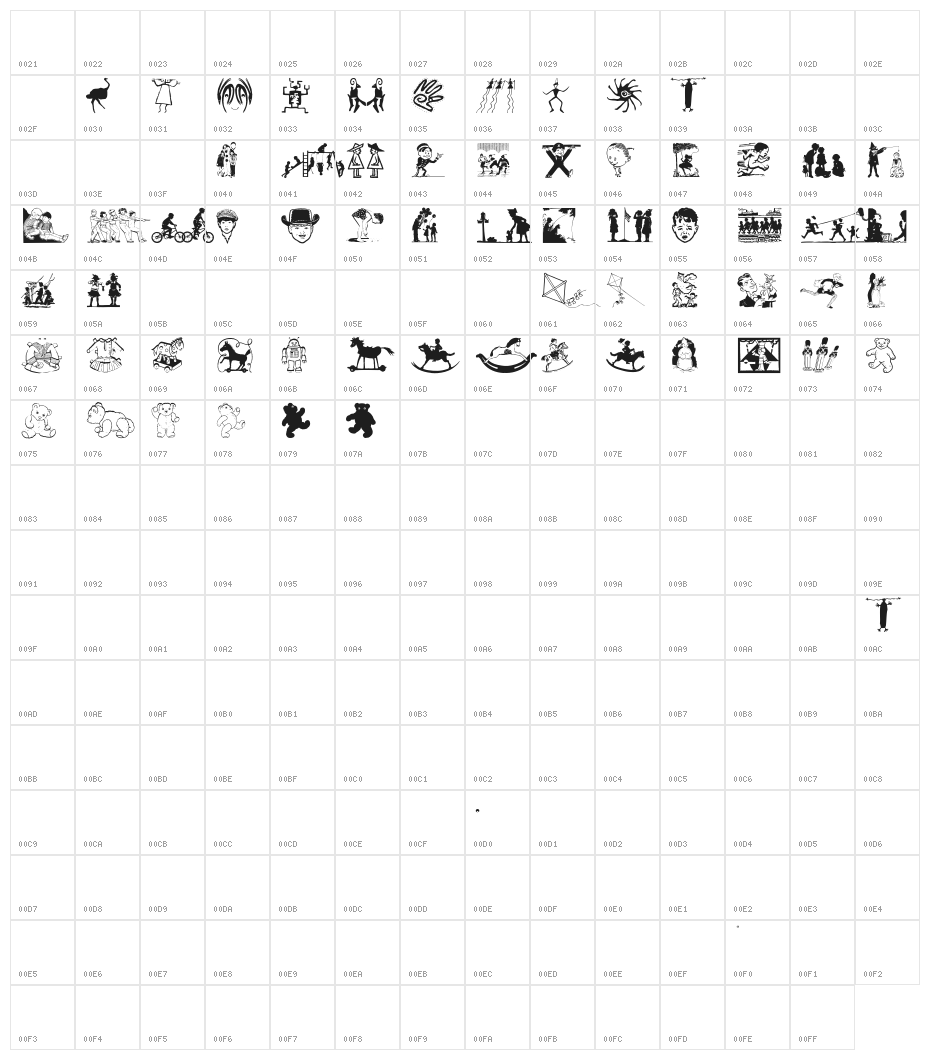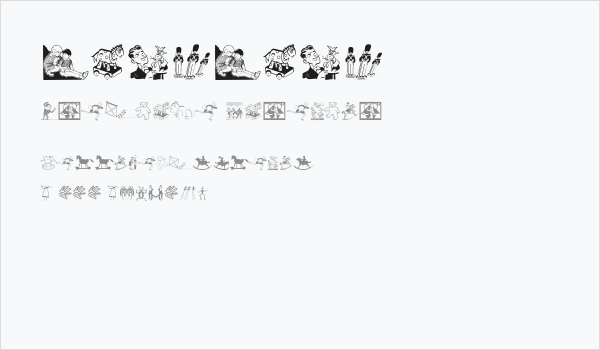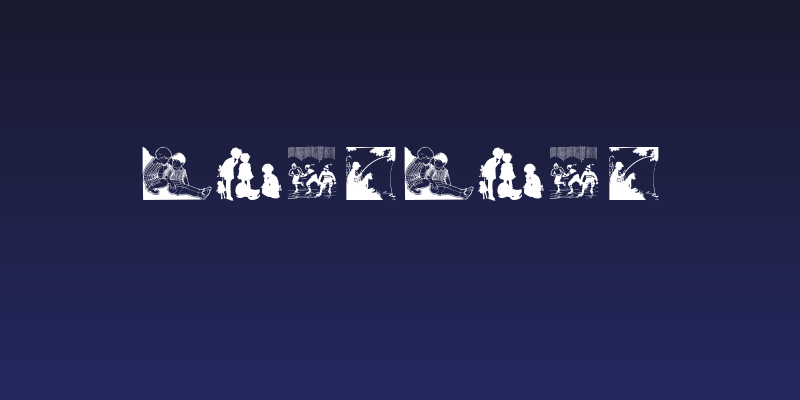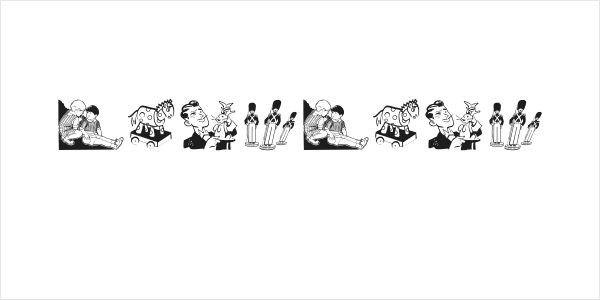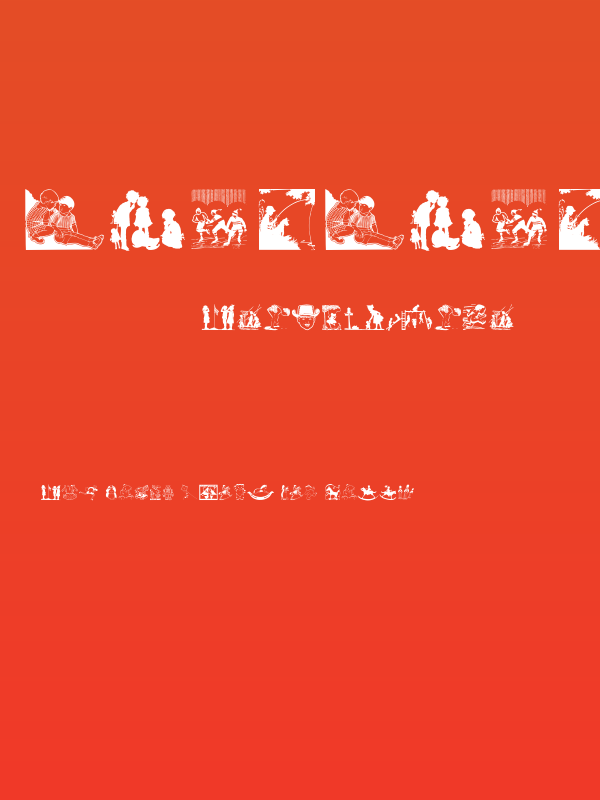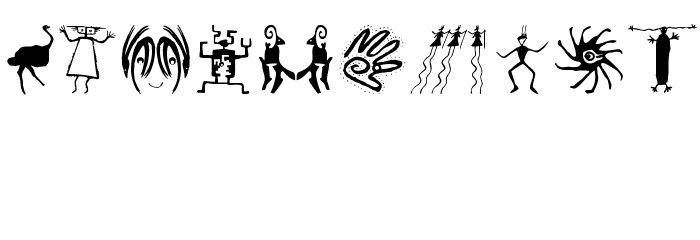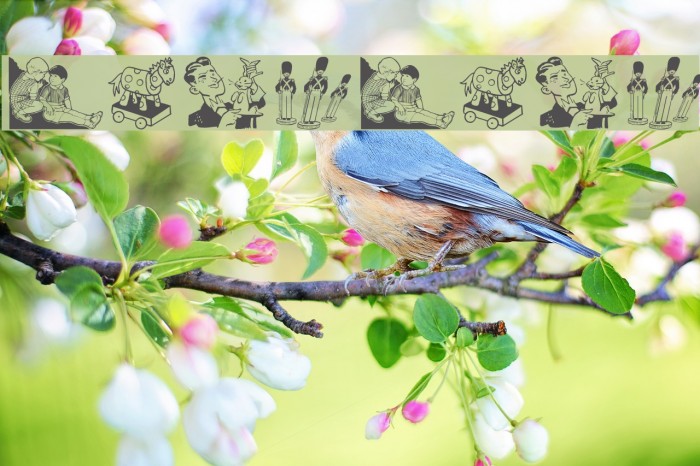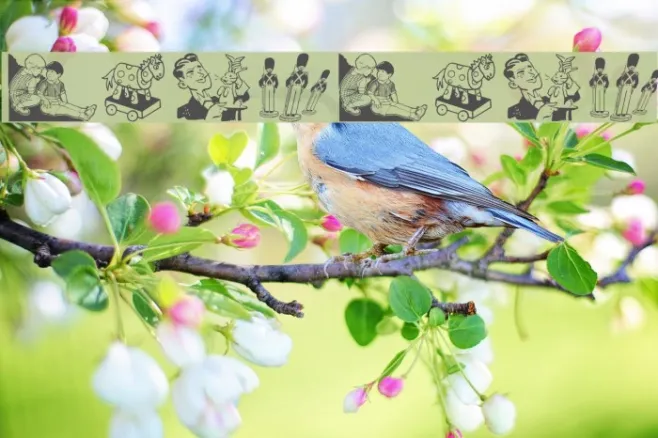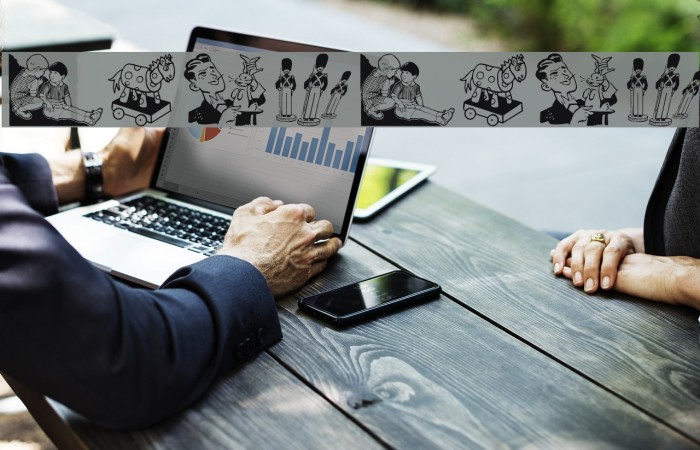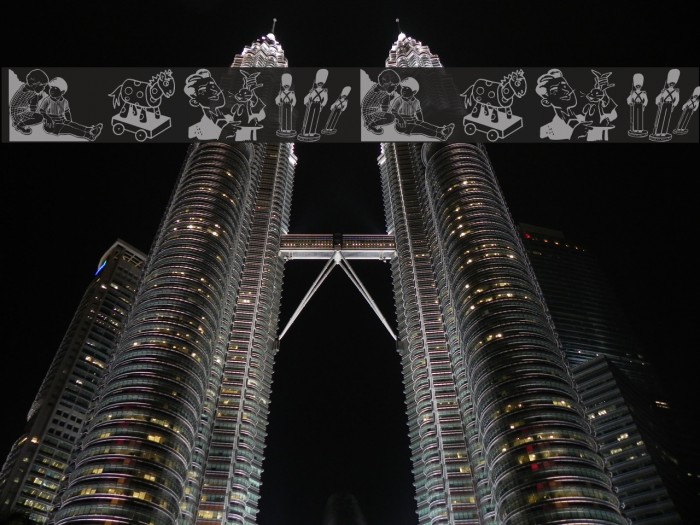
KidsKids Font
KidsKids Description
A playful and whimsical pictogram font featuring various child-related illustrations such as children playing, toys, kites, animals, and abstract figures. Each character is represented by a unique, detailed drawing rather than a traditional letterform, creating a lively and imaginative visual style.
| Overall Style | Playful, Whimsical, Decorative |
| Use Case | Illustrative elements, Thematic headlines, Visual storytelling, Educational graphics |
| Proposed Projects | Children's books, educational materials, posters, party invitations, playful branding, classroom decor. |